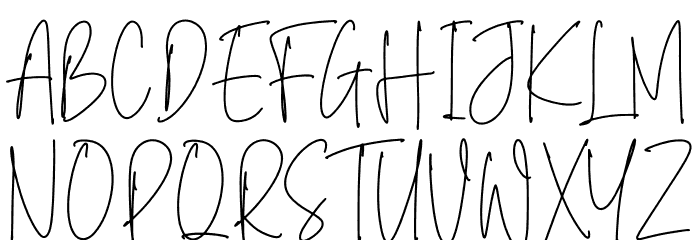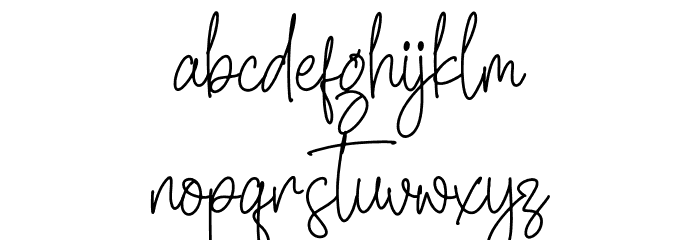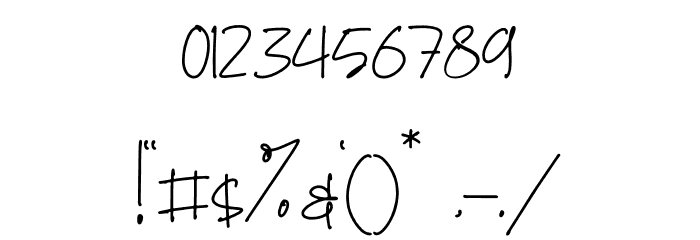
North Amsterdam Font
A playful, handwritten font with a casual and informal style, featuring irregular strokes and a personal touch.
Casual handwritten font with a playful style.
- Font: North Amsterdam
- Proposed Projects: Greeting cards, personal branding, casual invitations.
- Category: Handwritten
- Overall Style: Casual, Playful
- Use Case: Logos, Informal text, Personal notes